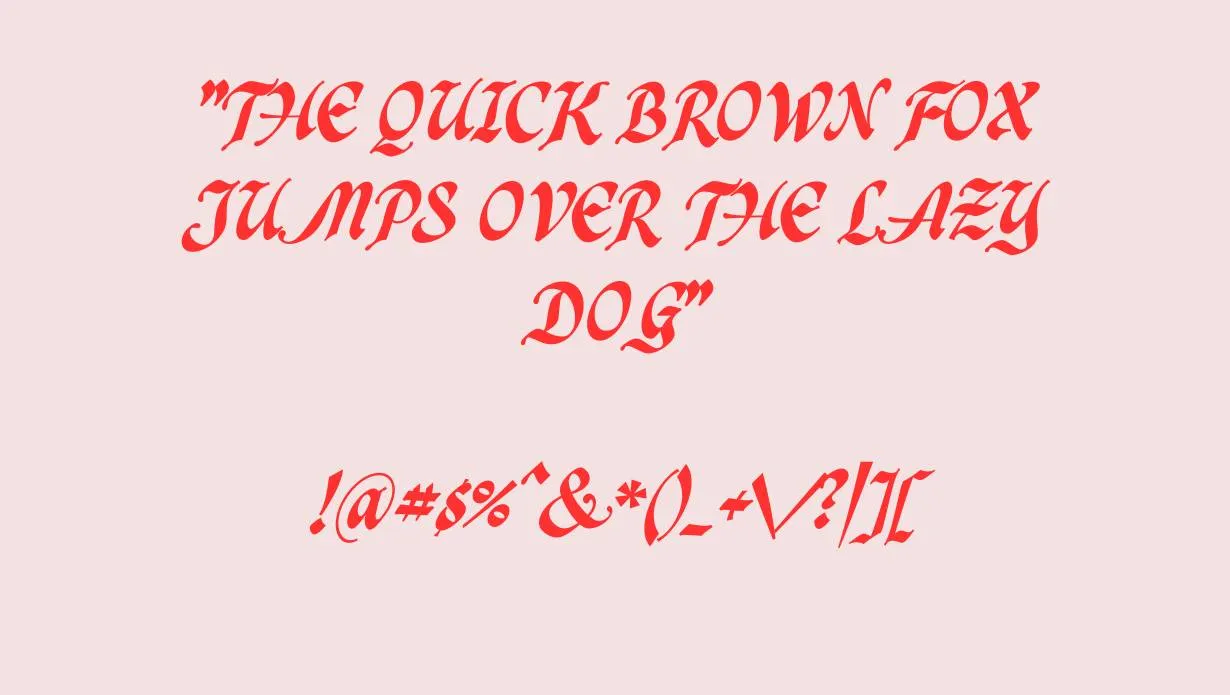
Caligraf Classical Calligraphy Script Font is the epitome of calligraphic beauty. Its intricate and ornate script is perfect for formal events, high-end invitations, or any project that requires a touch of timeless elegance.
| Name | Caligraf Classical Calligraphy Script Font |
| Designer | HKL STUDIO |
Caligraf Classical Calligraphy Script Font Family